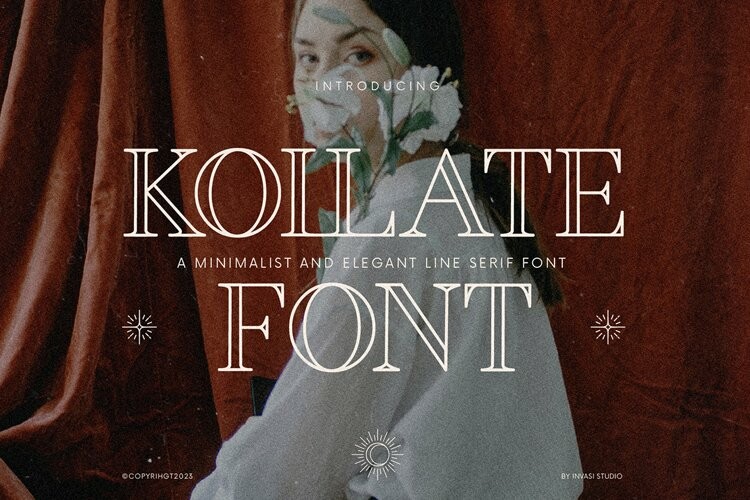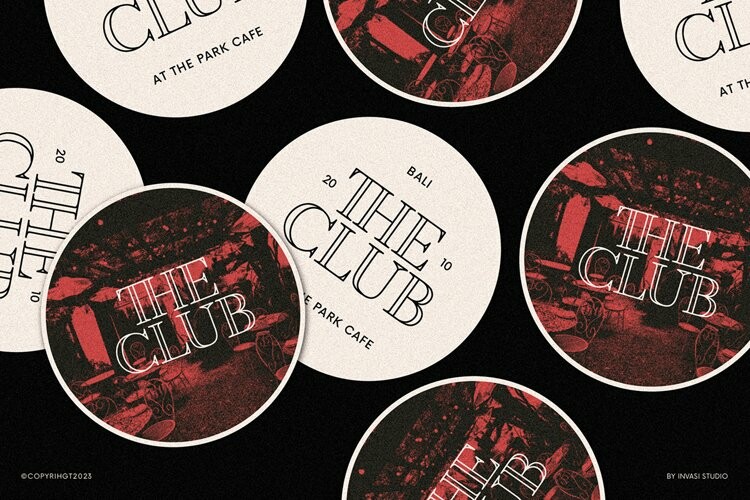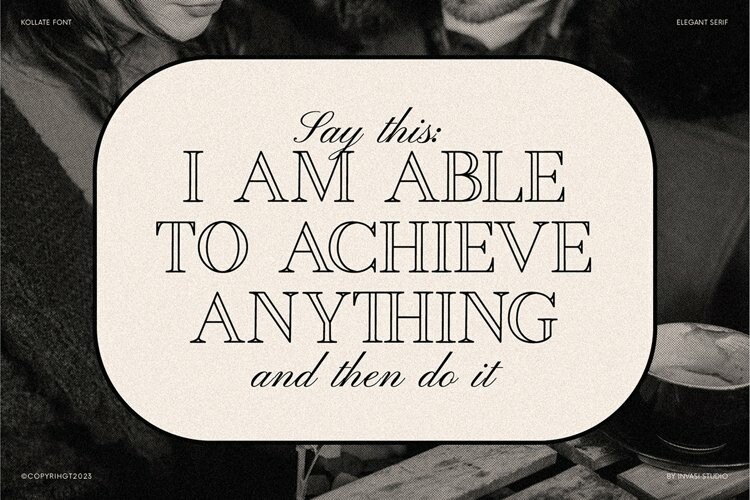
Kollate Font
Kollate FontKollate – a display serif with a line, simple, clean, and visually elegant. Specially designed for elegant-themed projects, perfectly suitable for creating simple, clean, lifestyle designs such as logos, titles, magazines, and more. The font features standard ligatures.